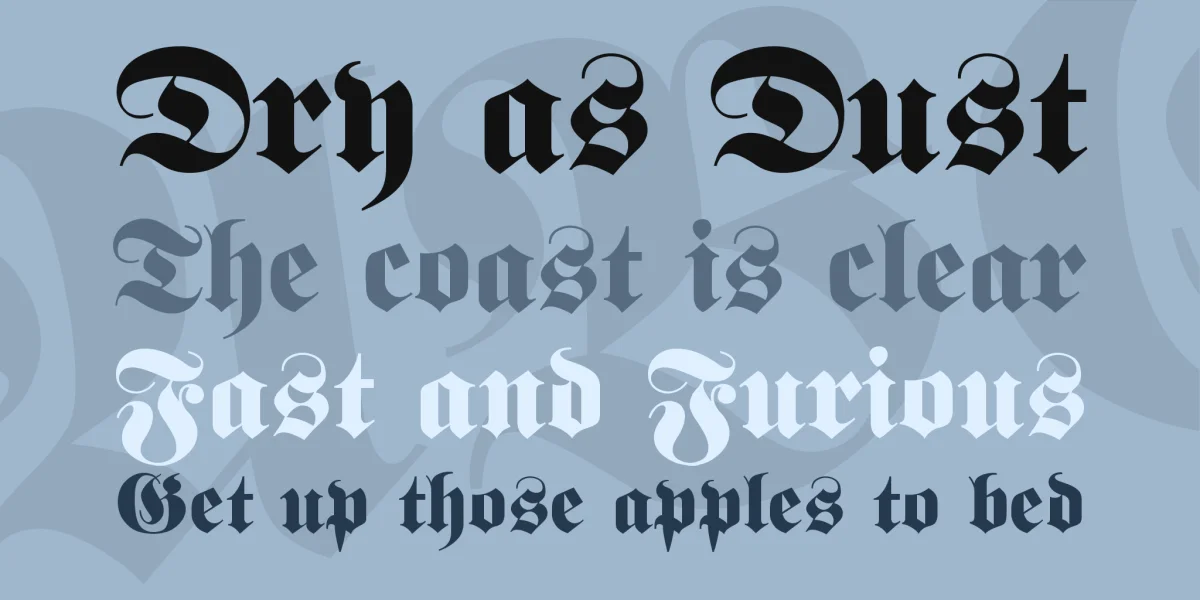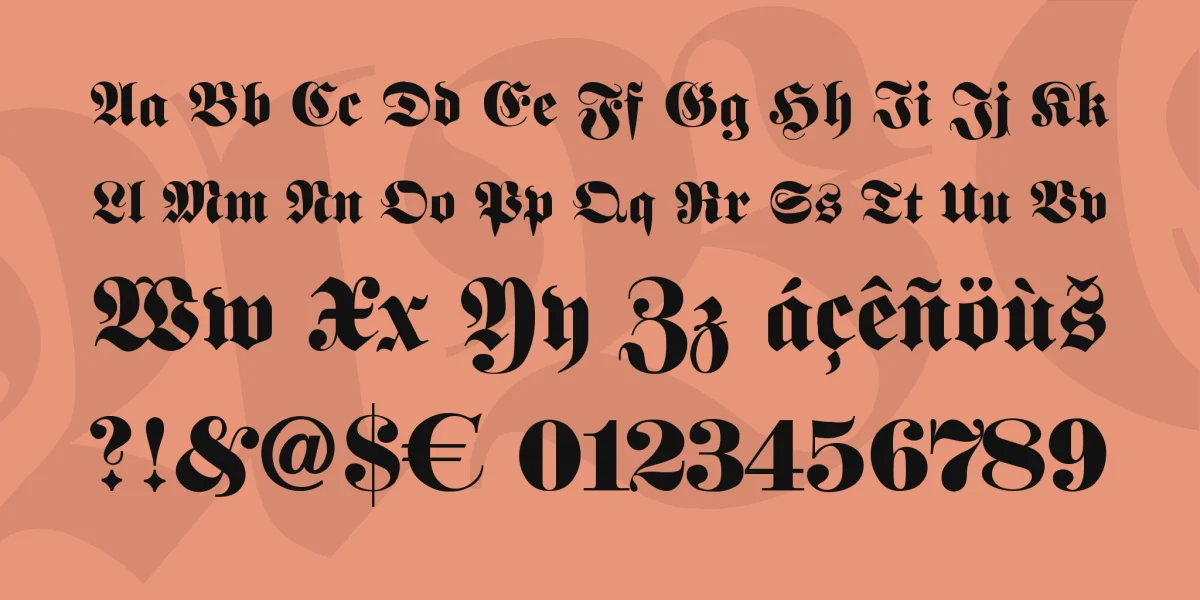
The "Fette Fraktur", a cut by Johann Christian Bauer for the font foundry CE Weber commercial writing, which was first published in 1850, is without doubt the fracture writings which is still the most used.
It is (also fracture BT or Frankenstein eg) from a variety of font foundries offered under various names.
Unfortunately, this font is also responsible for most of the irregular fracture label because it offered the most digital implementations lack of need to, just for a control fracture character set.
I recognized this deficiency and therefore decided also a version of the Fat fracture bring out, but with long s and all major ligatures. I again chose for this UNZ1 the current assignment, so this script can be easily used.